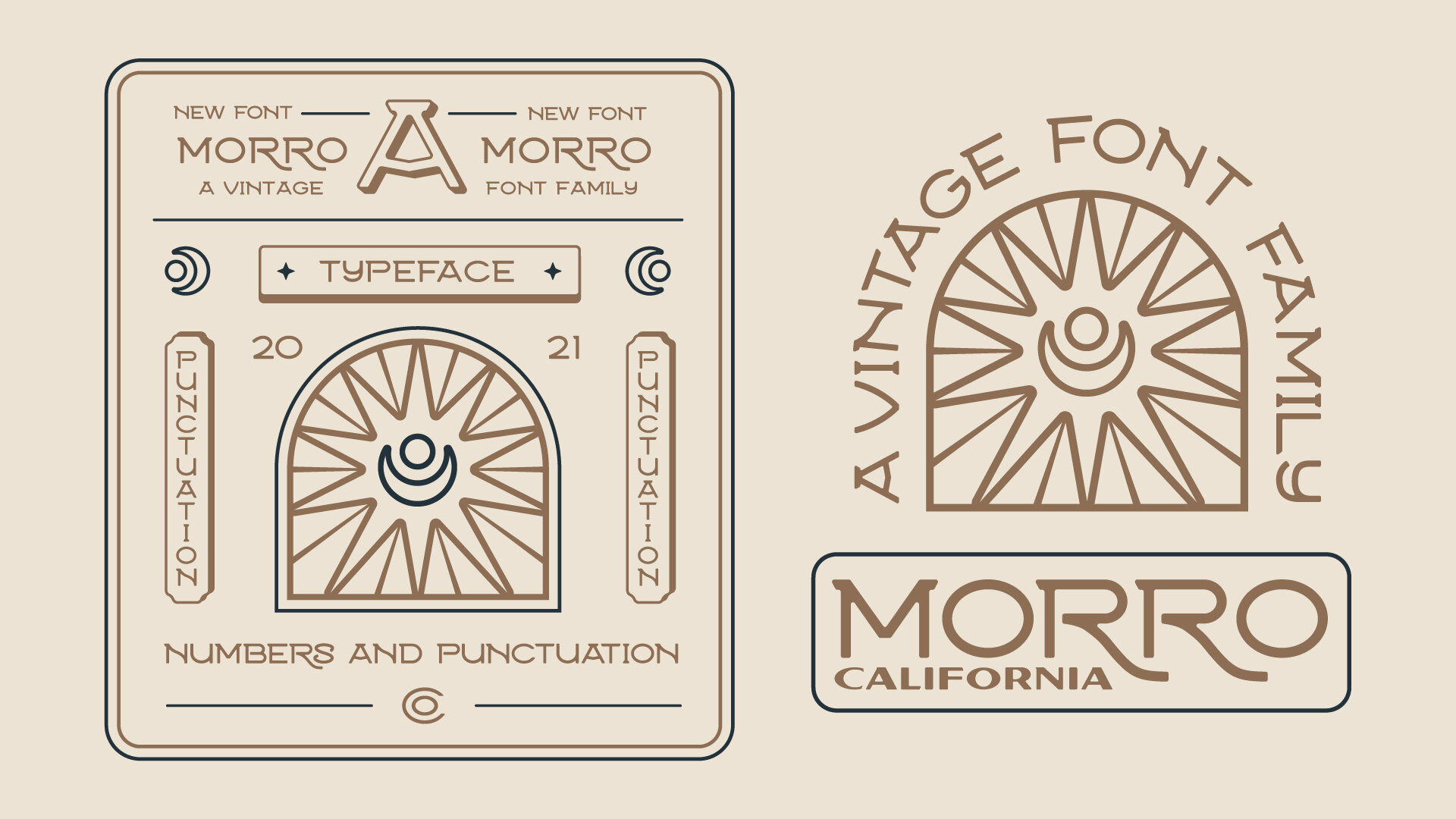
Morro Typeface
Named after the one of a kind historical beach town, the Morro Typeface includes 3 font styles with a full set of numbers and punctuation. Select characters include a stylish swoop that sits perfectly beneath the following letter. Secret symbols also included by selecting the "<>" keys on the keyboard. Enjoy!